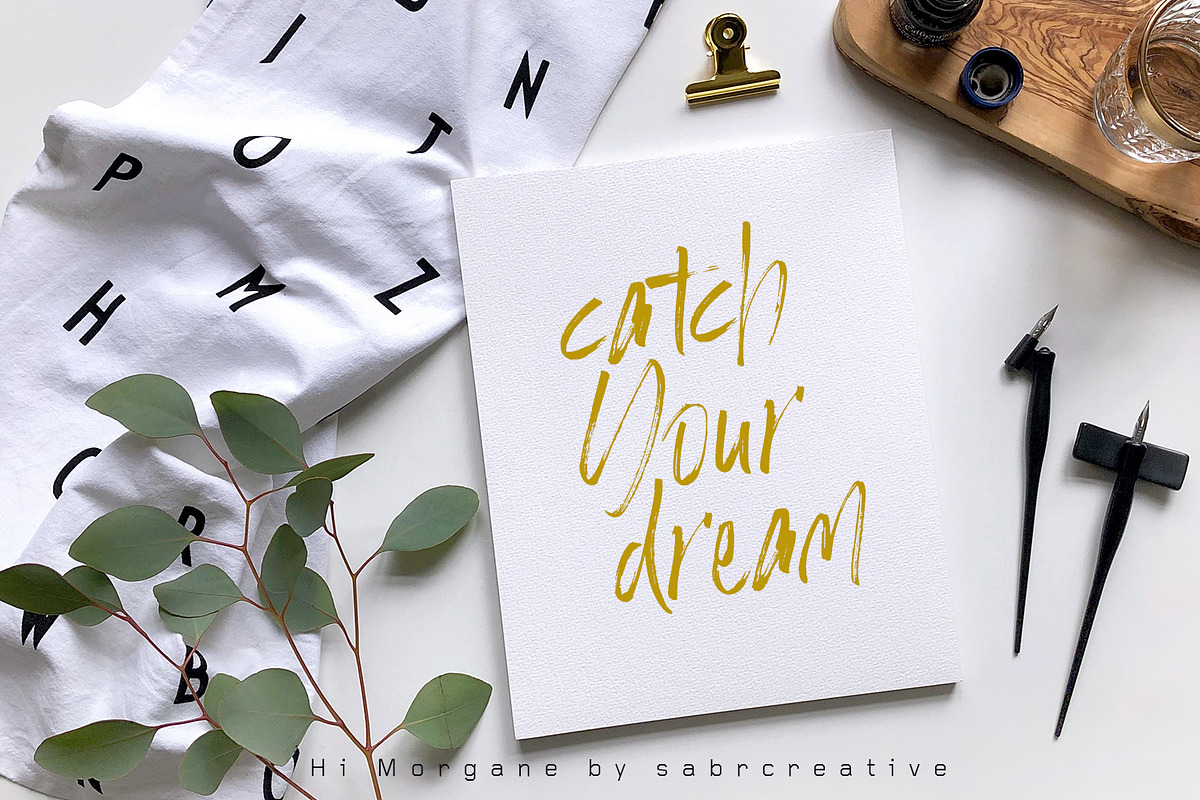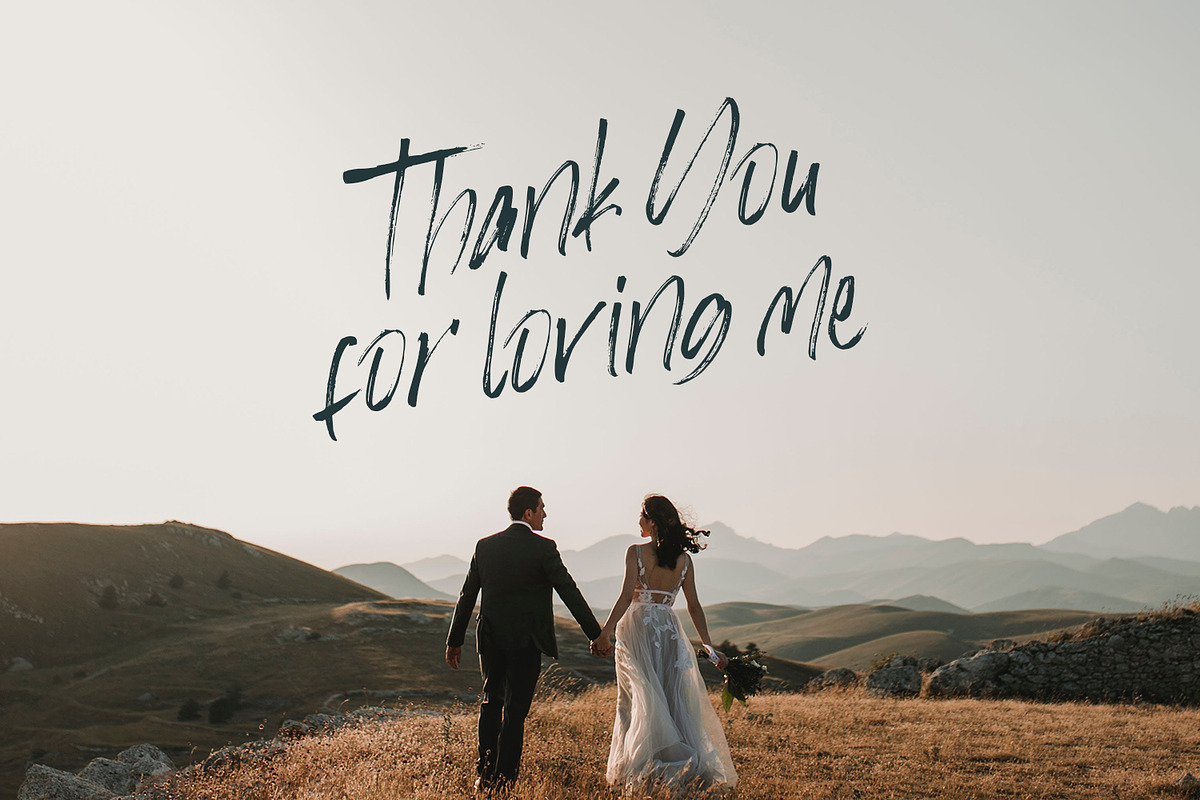
Hi Morgane
Introducing Hi Morgane Font, a Hand Brush font with natural and strong characters created using brushes and paint that produces the perfect texture.
Hi Morgane Fonts can be used for various types of design needs such as branding materials, t-shirts, social media templates, business cards, logos, promotional leaflets, posters, and more.